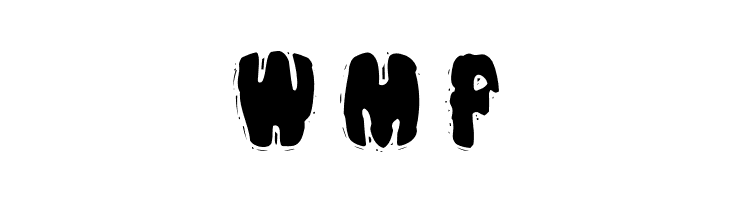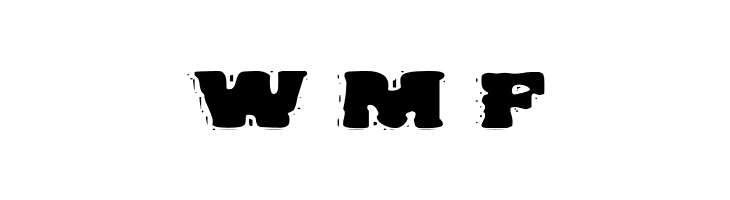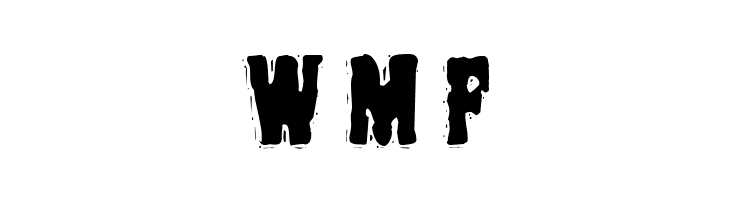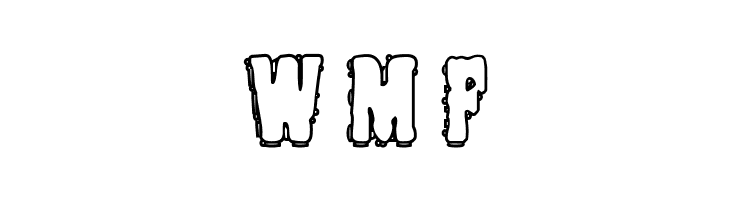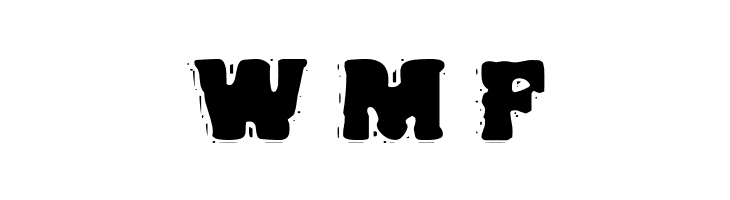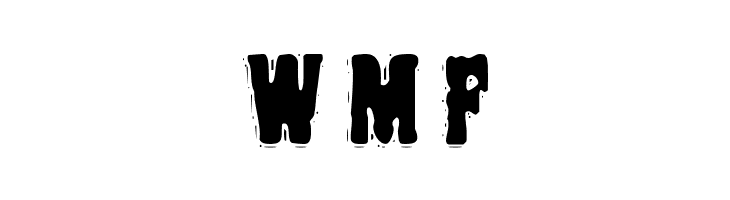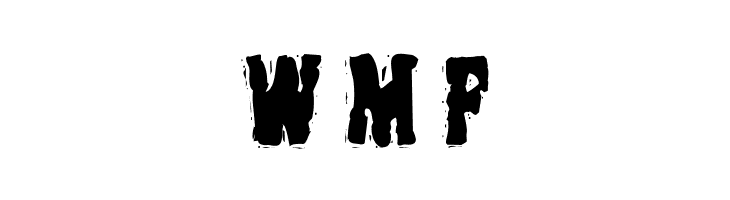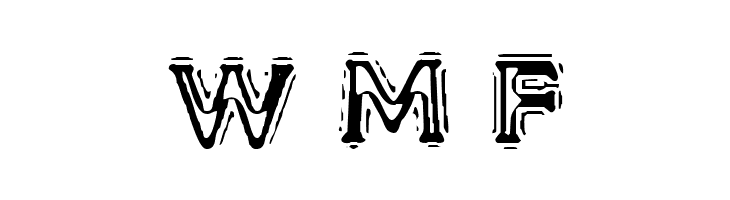
• VTC LiquorCrystalDisplay
A bold, decorative font with a crystal-like, three-dimensional appearance.
• VTC Night Of The Dead CorruptCaps
A bold, distressed font with jagged, eroded edges for dramatic impact.
• VTC Night Of The Drippy BentCaps
A bold, playful font with a dripping, liquid-like effect, perfect for spooky themes.
• VTC Night Of The Drippy Dead
A bold, drippy font with a spooky, playful style.
• VTC Night Of The Drippy Dead FatCaps
A bold, dripping font with a playful, eerie style perfect for spooky themes.
• VTC Night Of The Drippy DeadCaps
A bold, dripping font with a spooky, playful style.
• VTC Night Of The Drippy DeadOuttie
A bold, dripping font perfect for spooky or playful designs.
• VTC Night Of The Drippy LowCaps
A bold, dripping font with a playful, liquid-like appearance.
• VTC Night Of The Oozie DeadCaps
A bold, playful font with a spooky, dripping effect ideal for horror themes.
• VTC Night Of The Stretched Dead
A decorative, distressed font with an eerie, horror-themed style.